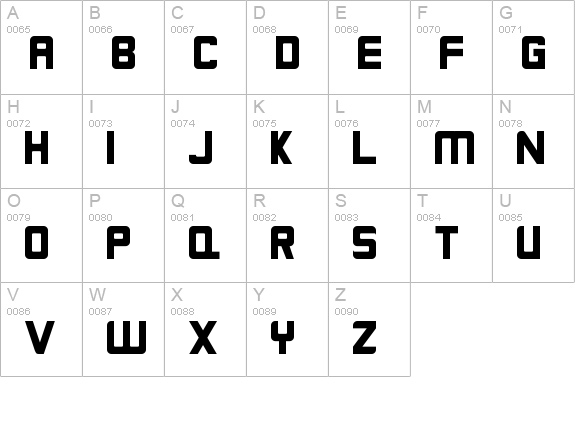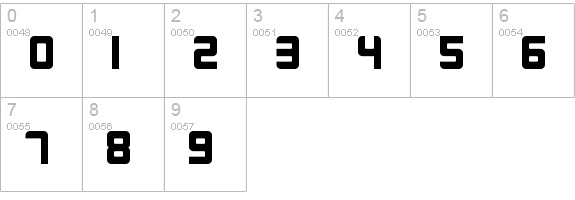
Chloreal Font Details
Chloreal font is a stunning and versatile typeface that exudes elegance and sophistication. Its sleek lines and modern aesthetic make it perfect for a wide range of design projects, from branding to editorial layouts. This font is sure to elevate any piece of work with its timeless appeal and contemporary charm. The best part? Chloreal font is completely free to download at FontsMarket.com. That's right, you can access this beautiful font at no cost and start using it in your projects right away. With its effortless style and professional look, Chloreal font is a must-have addition to any designer's toolkit. Download it today and see the magic it brings to your creations!